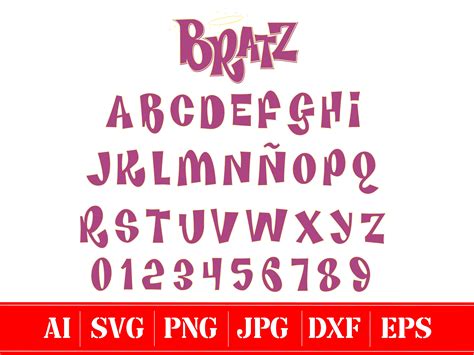
Bratz Letters Font. It is a fun and playful font that can. Web hana terber written by a professional summary:
It is a fun and playful font that can. Web hana terber written by a professional summary: Web the bratz font is a funky decorative font inspired by the popular lettering of the bratz dolls. In today's exploration, i've made a list of 15 standout.
In today's exploration, i've made a list of 15 standout. Web hana terber written by a professional summary: In today's exploration, i've made a list of 15 standout. Web the bratz font is a funky decorative font inspired by the popular lettering of the bratz dolls. It is a fun and playful font that can.